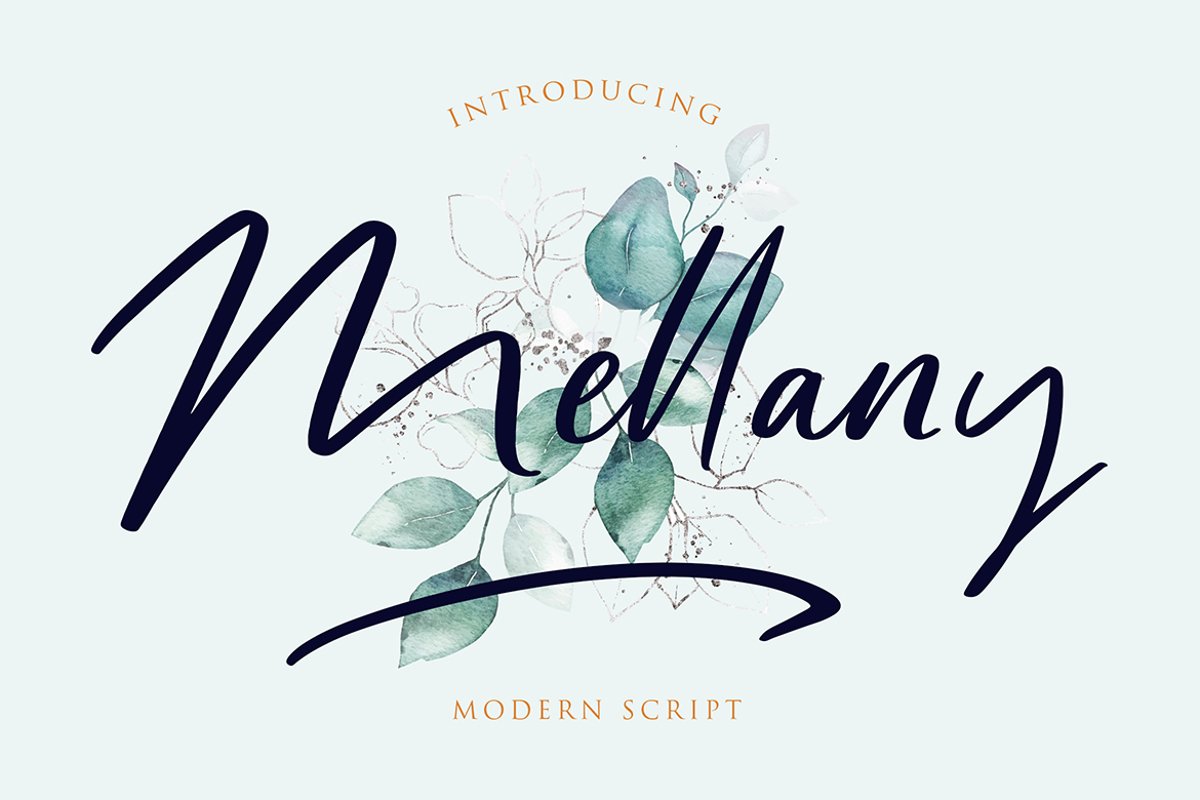
Mellany Modern Script Font
Mellany
Mellany is a Modern Script font can make your text appear elegant, luxurious, and modern!Mellany is perfect for branding projects, logo, wedding designs, social media posts, advertisements, product packaging, tshirt design, product designs, label, photography, watermark, invitation, stationery and any projects.What's Included :